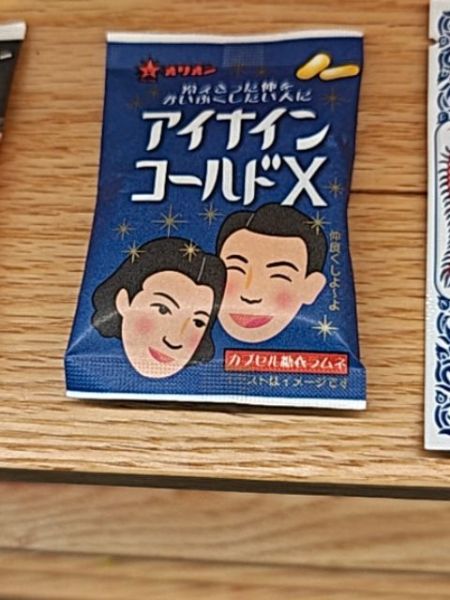
i-Nin Cold X
A health supplement or medication intended to relieve cold symptoms.
The typography on the packaging employs a bold, sans-serif font, enhancing the clarity and impact of the main text. The use of white against the blue background ensures high contrast, making the text easily readable. The supporting text appears in a smaller, lighter sans-serif font, maintaining consistency with the main font while differentiating secondary information.
The packaging features a vibrant blue background with sparkling star elements, giving it a lively and somewhat nostalgic feel. It prominently displays illustrated faces of a happy couple, suggesting relief and comfort from the product. The package is compact and likely easy to carry, targeting consumers who may need a quick remedy on the go.
- Contains capsules for treating cold symptoms.
- Features distinctive vintage-style illustrations.
- Marketed in Japan.